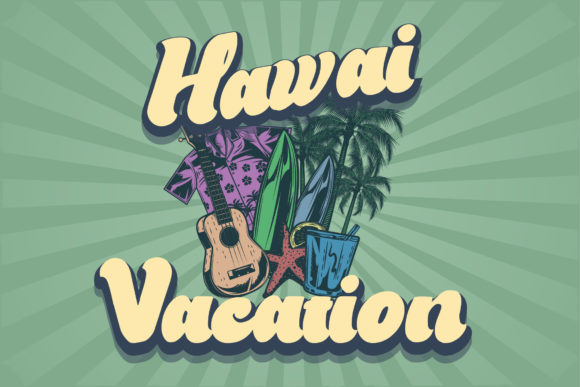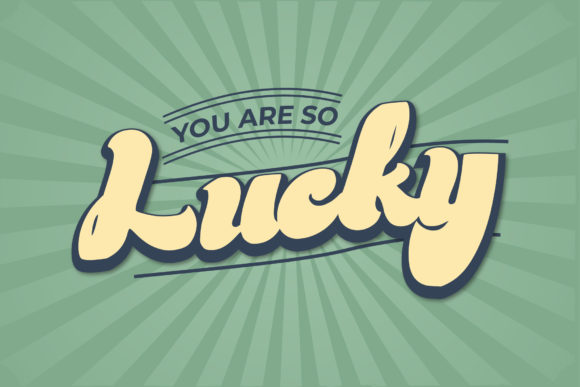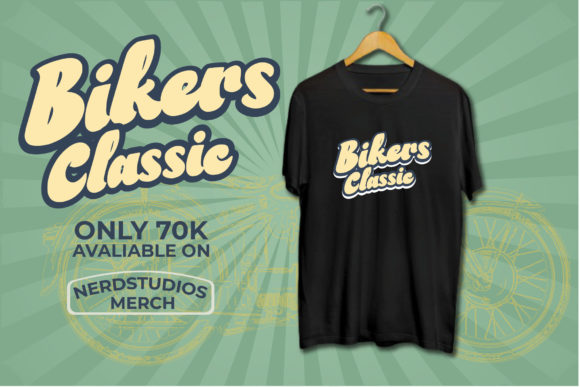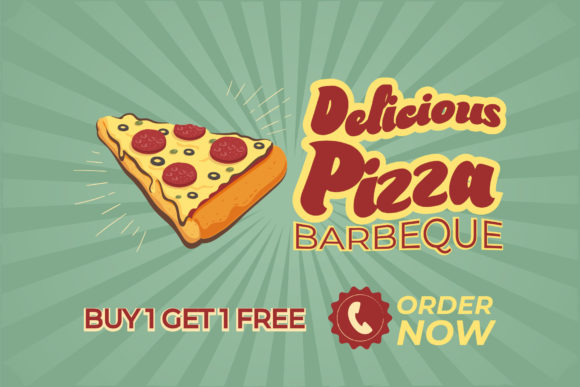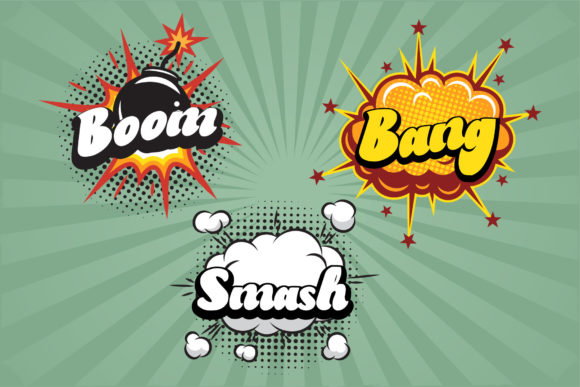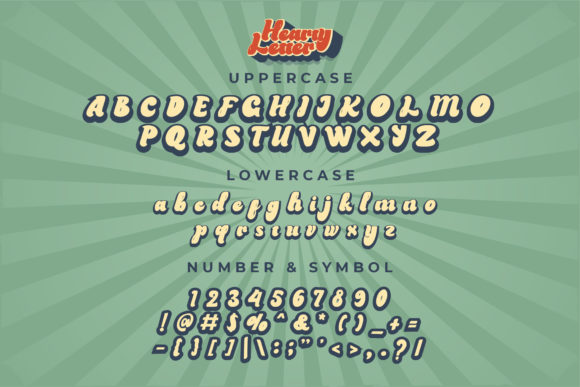
Introducing Hearty Letter Font: A Thick Lettered, Retro Styled Handwritten Font
Are you looking for a font that exudes strength, confidence, and a touch of nostalgia? Look no further than Hearty Letter Font, a thick lettered, retro styled handwritten font that’s perfect for designers and crafters alike. In this article, we’ll dive into the details of Hearty Letter Font, exploring its unique features, uses, and benefits.
A Strong and Confident Font
Hearty Letter Font is designed to make a statement. Its thick, bold letters convey a sense of strength and confidence, making it perfect for designs that require a bit of punch. Whether you’re creating a logo, poster, or social media graphic, Hearty Letter Font is sure to grab attention and leave a lasting impression.
A Retro Styled Handwritten Font
But Hearty Letter Font isn’t just about being bold – it’s also about being stylish. With its retro flair and handwritten feel, this font adds a touch of nostalgia to any design. Imagine creating a vintage-inspired poster or a distressed-looking logo; Hearty Letter Font is the perfect choice.
Uses for Hearty Letter Font
So, what can you use Hearty Letter Font for? The possibilities are endless! Here are a few ideas to get you started:
- Logos and branding: Hearty Letter Font is perfect for creating bold, eye-catching logos that make a statement.
- Posters and flyers: Add a touch of nostalgia to your posters and flyers with Hearty Letter Font’s retro flair.
- Social media graphics: Make your social media graphics stand out with Hearty Letter Font’s bold, confident letters.
- Packaging design: Add a personal touch to your packaging design with Hearty Letter Font’s handwritten feel.
Benefits of Hearty Letter Font
So, why choose Hearty Letter Font over other fonts? Here are just a few benefits:
- Unique and distinctive: Hearty Letter Font stands out from the crowd with its bold, retro style.
- Easy to read: Despite its bold style, Hearty Letter Font is surprisingly easy to read, making it perfect for body text and headings.
- Versatile: Hearty Letter Font can be used for a wide range of designs, from logos and posters to social media graphics and packaging.
- Nostalgic feel: Hearty Letter Font’s retro flair adds a touch of nostalgia to any design, making it perfect for vintage-inspired projects.
Tips for Using Hearty Letter Font
Here are a few tips for getting the most out of Hearty Letter Font:
- Use it sparingly: Hearty Letter Font is bold, so use it sparingly to avoid overwhelming your design.
- Experiment with colors: Hearty Letter Font looks great in a range of colors, so don’t be afraid to experiment and find the perfect hue for your design.
- Pair it with other fonts: Hearty Letter Font pairs well with other fonts, so try combining it with a sans-serif font for a bold and modern look.
In conclusion, Hearty Letter Font is a thick lettered, retro styled handwritten font that’s perfect for designers and crafters looking to add a touch of strength, confidence, and nostalgia to their designs. With its unique features, versatility, and ease of use, Hearty Letter Font is a must-have for any design project. So why wait? Download Hearty Letter Font today and start creating bold, eye-catching designs that make a statement!